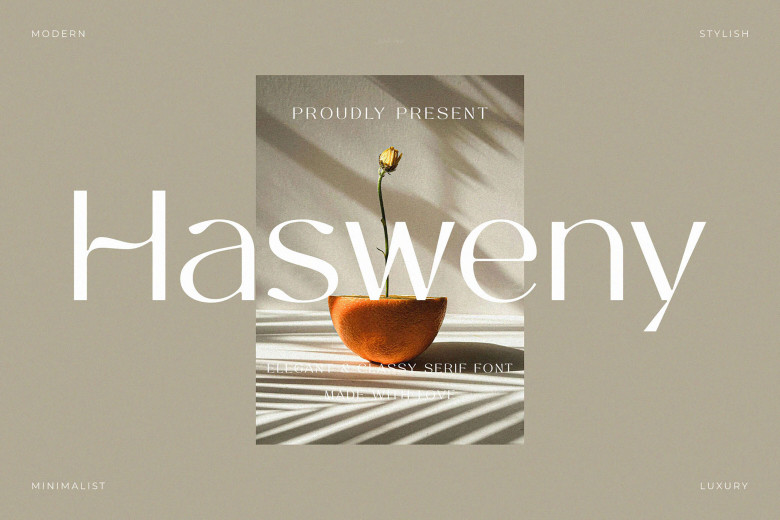
Hasweny Font
Hasweny is a beautiful and modern sans serif font, that emphasizes its unique elegance in a particularly elegant way. Meticulous letter forms present a lingering sense of novelty, in fact set it apart from other similar typefaces. Perfect for jobs that call for a particular look, Hasweny adds a classical touch–as well individualism as something of its own choosing–to projects.
Hasweny Sans Serif Font